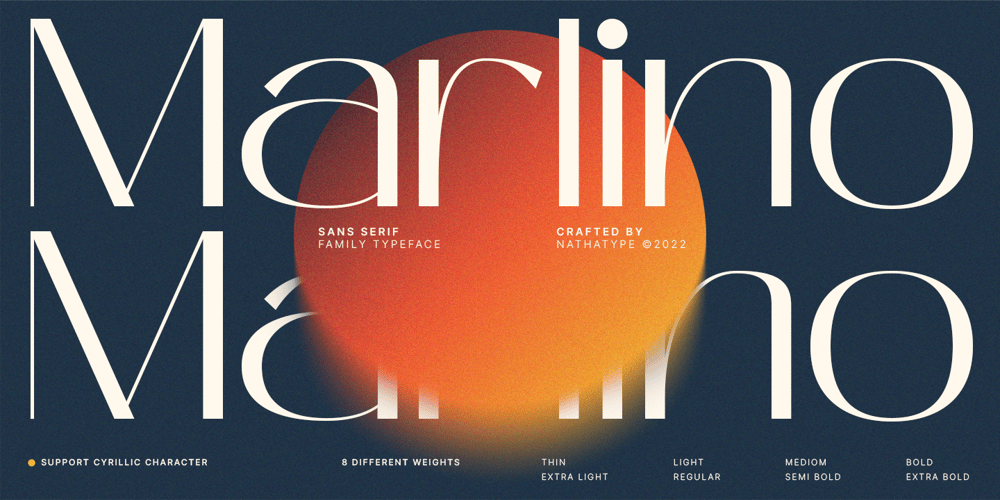
Marlino
Marlino font
Marlino Font Family was designed by Donis Miftahudin and published by Nathatype. Marlino contains 8 styles and family package options. Do you want to achieve more?Marlino makes your work got even easier. Marlino is a sans serif font family. It’s simple, modern yet purposely function and definitely helps you achieve favorable design results. There are 8 different styles in this family. This variety in styles and character availability gives you some flexibility in terms of where and when you decide to use it.Features: Multilingual Supports Numerals and Punctuations PUA Encoded It can be used for many design projects, such as poster, logo, book cover, branding, heading, printed product, merchandise, quotes, social media campaign, etc. Learn more about how to use it by seeing the font preview.Thank you for purchasing our fonts. Please don’t hesitate to contact us, if you have any further question or issues. We’re happy to help. Happy Designing.